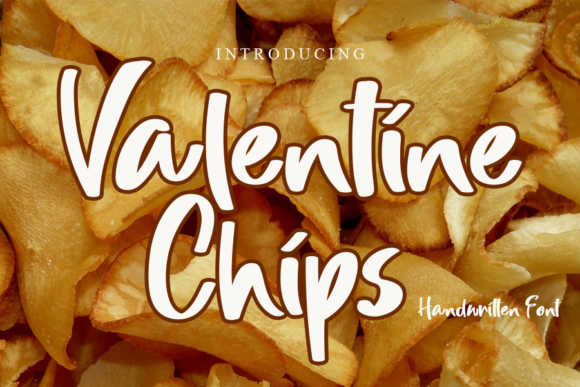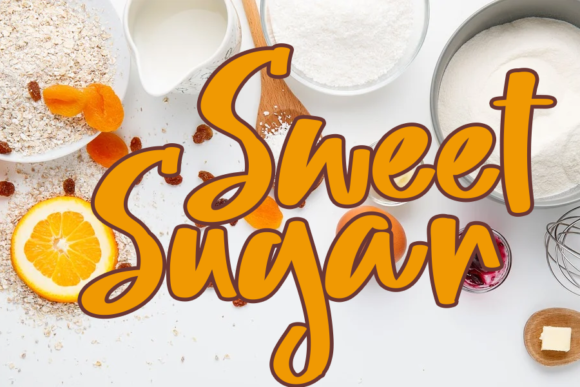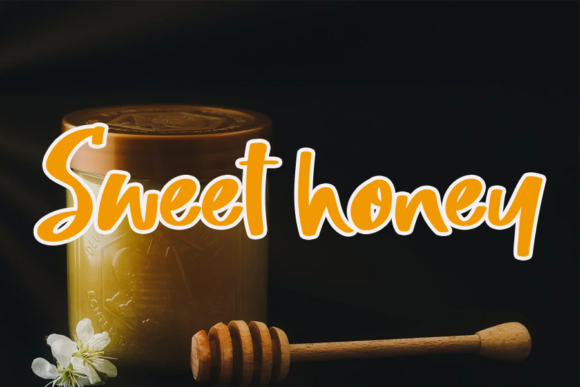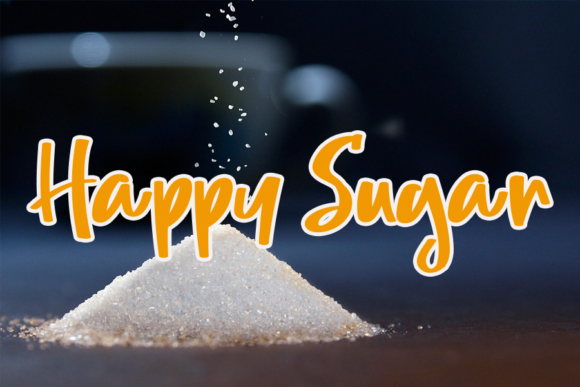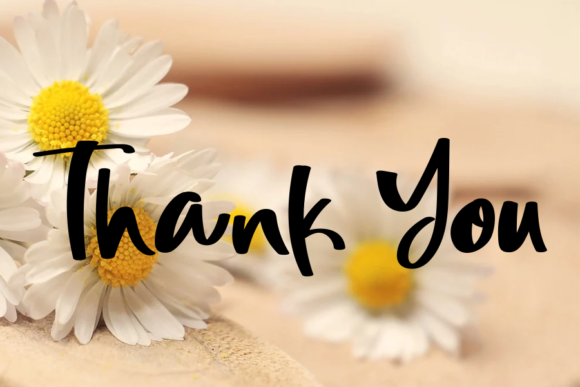
Valentine Chips
About Valentine Chips Font
Valentine Chips is a cute and charming handwritten font. Whimsical and a bit quirky, this font will brighten up each of your designs. Add it confidently to your projects, and you will love the results.